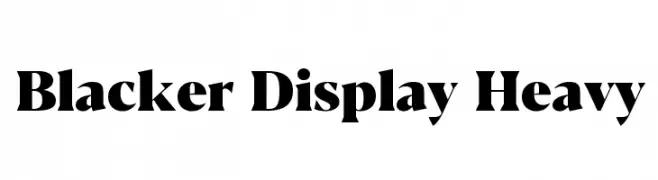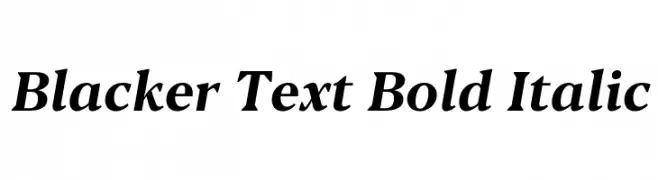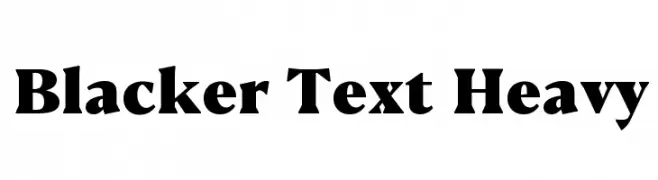
An elegant, italicized font with medium weight and sharp strokes.
An elegant, light, and italic serif font with a modern touch.
A bold, serif font with a modern twist, ideal for impactful headlines.
A bold, italic serif font with a strong, dynamic presence.
A refined, light, and italic serif font with high contrast and elegant serifs.
A bold, high-contrast serif font with a strong and classic presence.
A bold, high-contrast serif font with a commanding presence.
A sleek, modern, thin italic font with a minimalist aesthetic.
A sleek, minimalist font with thin lines and a modern aesthetic.
A bold, modern font with clean lines and strong presence.